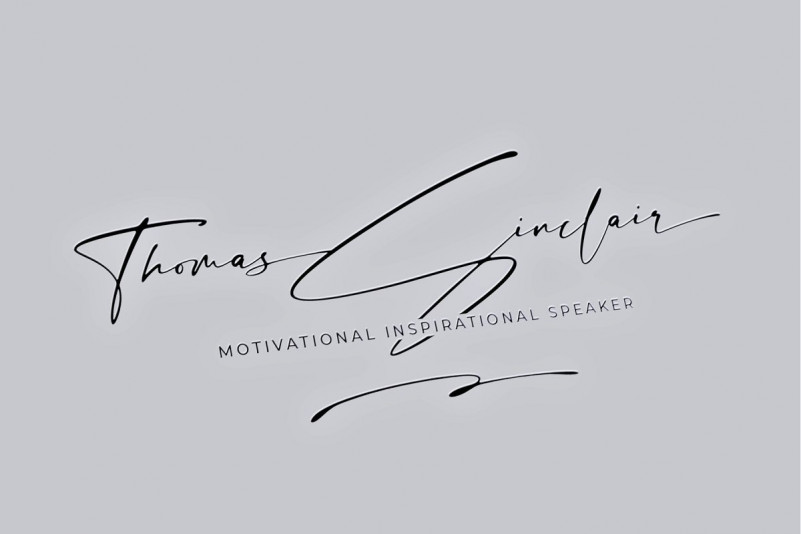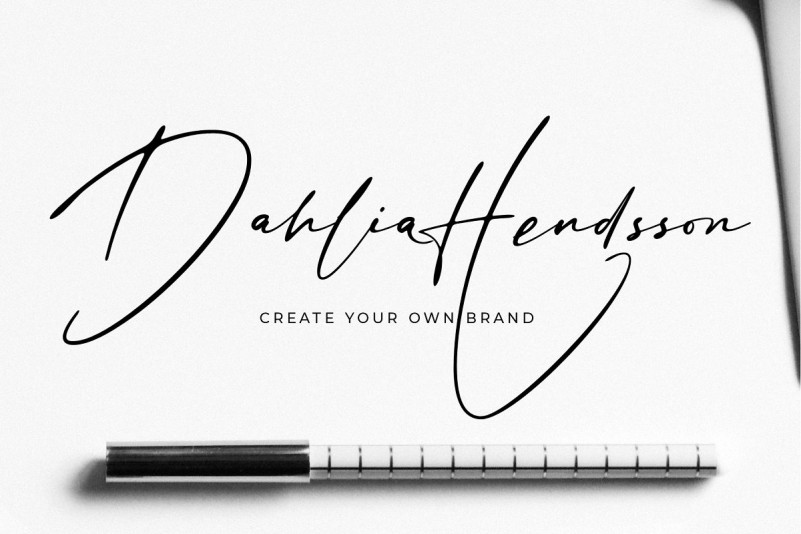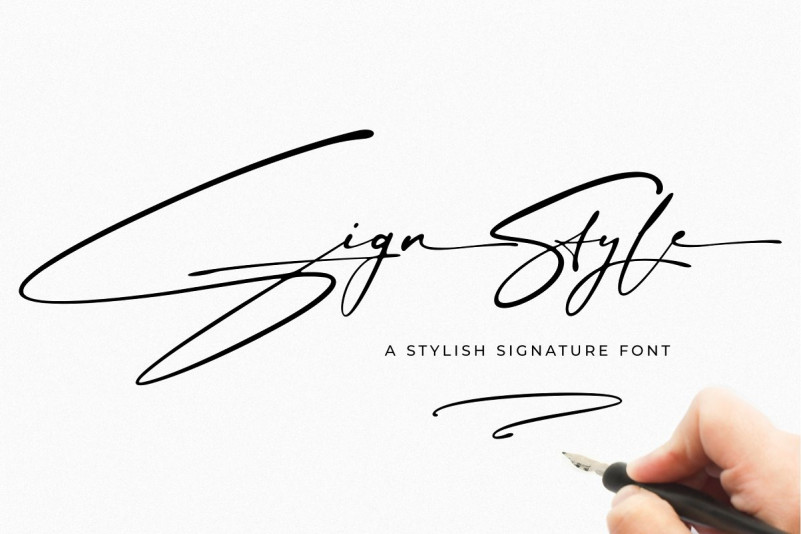
Sign Style Handwritten Font
Introducing Sign Style is a stylish Signature font with contemporary and sophisticated accents. It is perfect for logo/branding projects, large header text and product packaging.